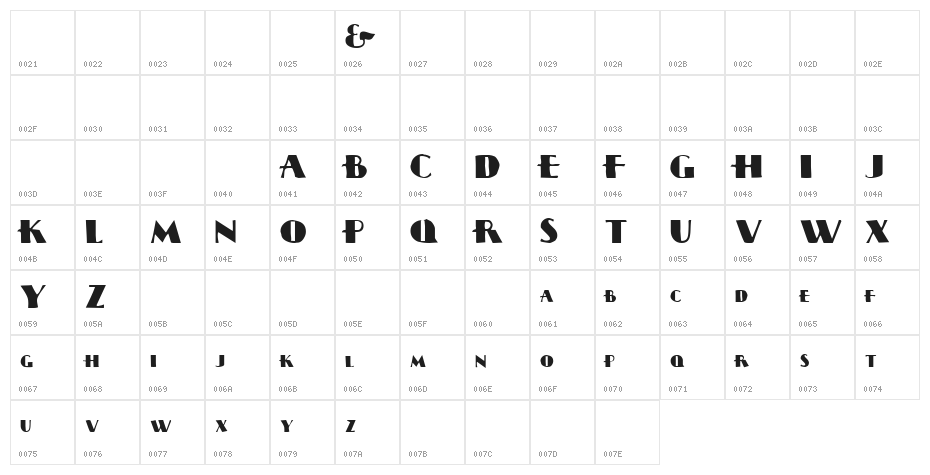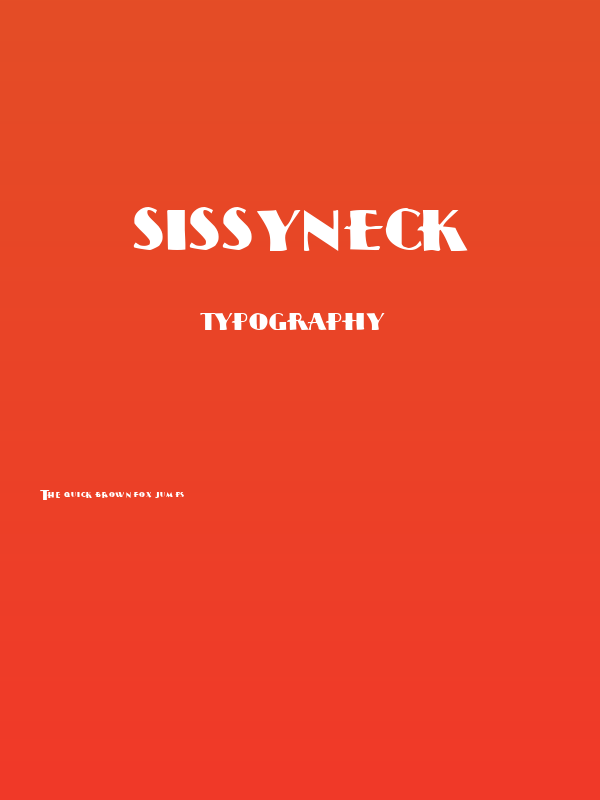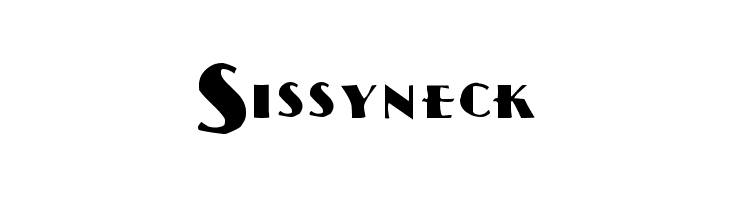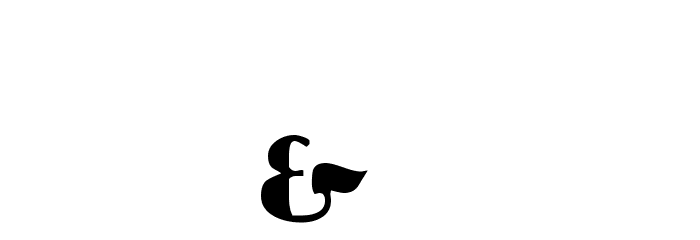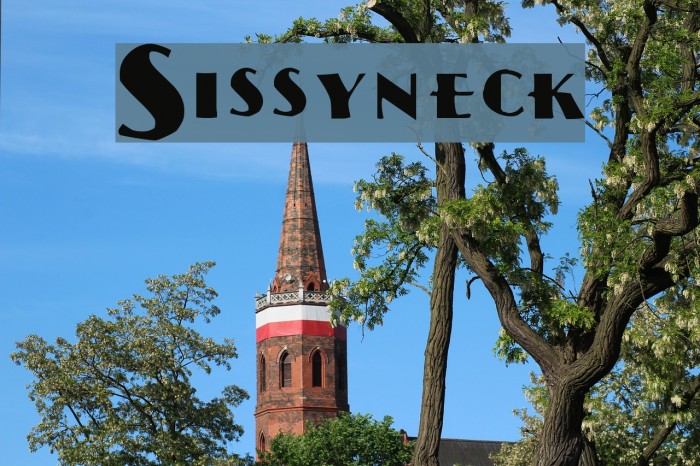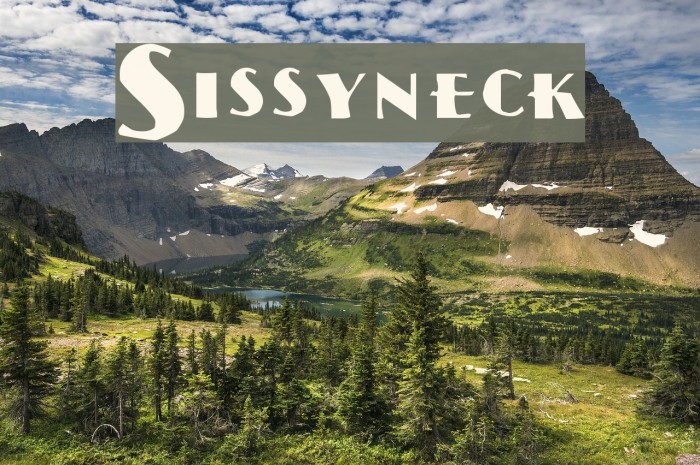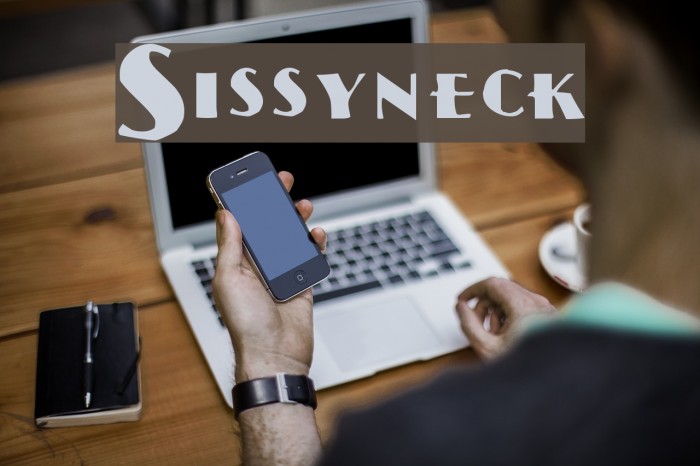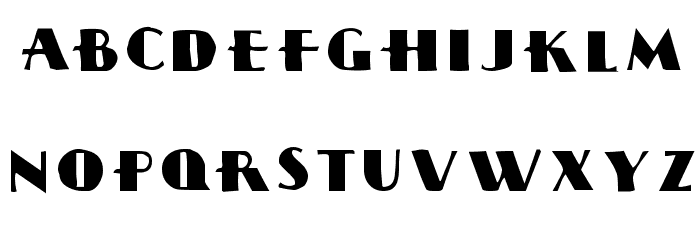
Sissyneck Font
Sissyneck Description
This font features a bold and striking design with a unique blend of geometric and decorative elements. The uppercase letters exhibit a strong presence with sharp angles and distinct cutouts, creating a sense of movement and dynamism. The lowercase letters maintain a consistent style, complementing the uppercase with similar angular features. The ampersand is particularly ornate, adding a touch of elegance to the overall design. This font is well-suited for projects that require a bold statement, such as branding, posters, or headlines. Its distinctive style makes it stand out, ensuring that any text set in this font will capture attention.
| Proposed Projects | Ideal for branding, posters, and headlines that require a bold statement. |